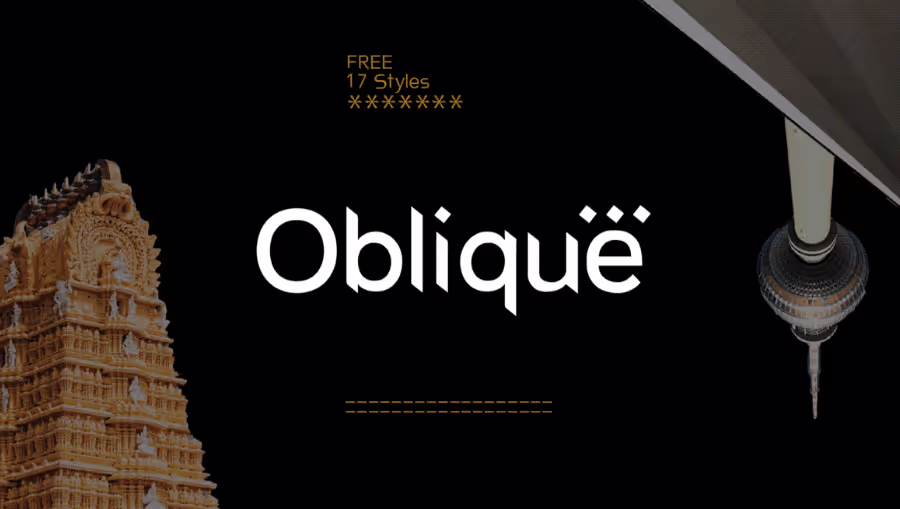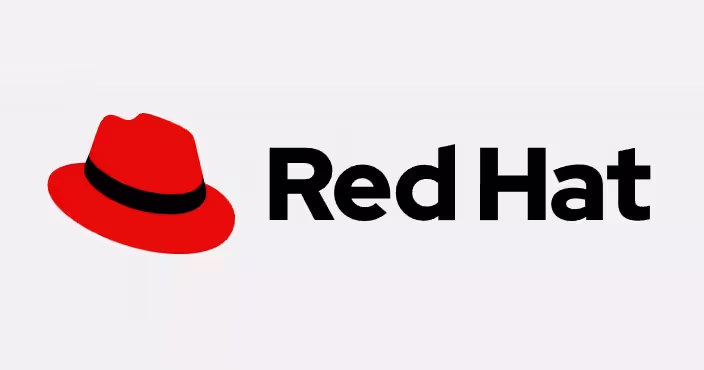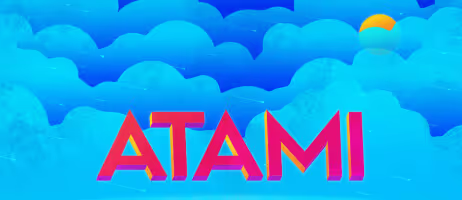
25 Modern Sans Serif Fonts for Trendy Designs
Sure, you’ve heard of Helvetica, Arial and Roboto. But why not spice up your designs with these modern sans serifs?
Sans serifs are known to be crisp, minimalist and most commonly used in the professional context. Due to high legibility these fonts are often used for body text, but can also look great on logos and website design.
If you’re looking for a sans serif font to help you stand out from the rest, here are a few modern fonts you can check out. We’ve split them into free and fonts that require the purchase of a commercial license.
If you’re a small business or startup, paying for typography might not seem like a worthwhile investment—after all, expenses often pile up in these early stages! But don’t forget that typography is an integral design element of your brand identity, and can even be what makes a standout logo! As little as a few tens of dollars can get you a unique font that isn’t overused by your competitors.
1. Yadon (from $21)
This lovely font family includes typefaces in 9 different weights, in both OTF and TTF format. Yadon has a very stylish and elegant look and would make a perfect Art Deco-inspired logo.
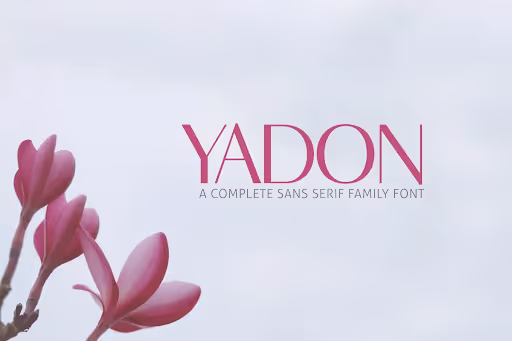
2. Zisel (from $21)
A crisp, geometric sans serif will certainly give your business a professional edge. Zisel is a great modern alternative to consider. It’s got great readability, and works equally well in smaller and bigger sizes, as a display font.
3. Adon (from $16)
If you’re not exactly sure what style you need, Adon is a perfect middle ground in many respects. It’s fairly minimalistic, but the curved edges of the glyphs lend this font a more casual, playful quality. The font pack comes in 5 different weights, thin, regular and bold, which all combine very well.
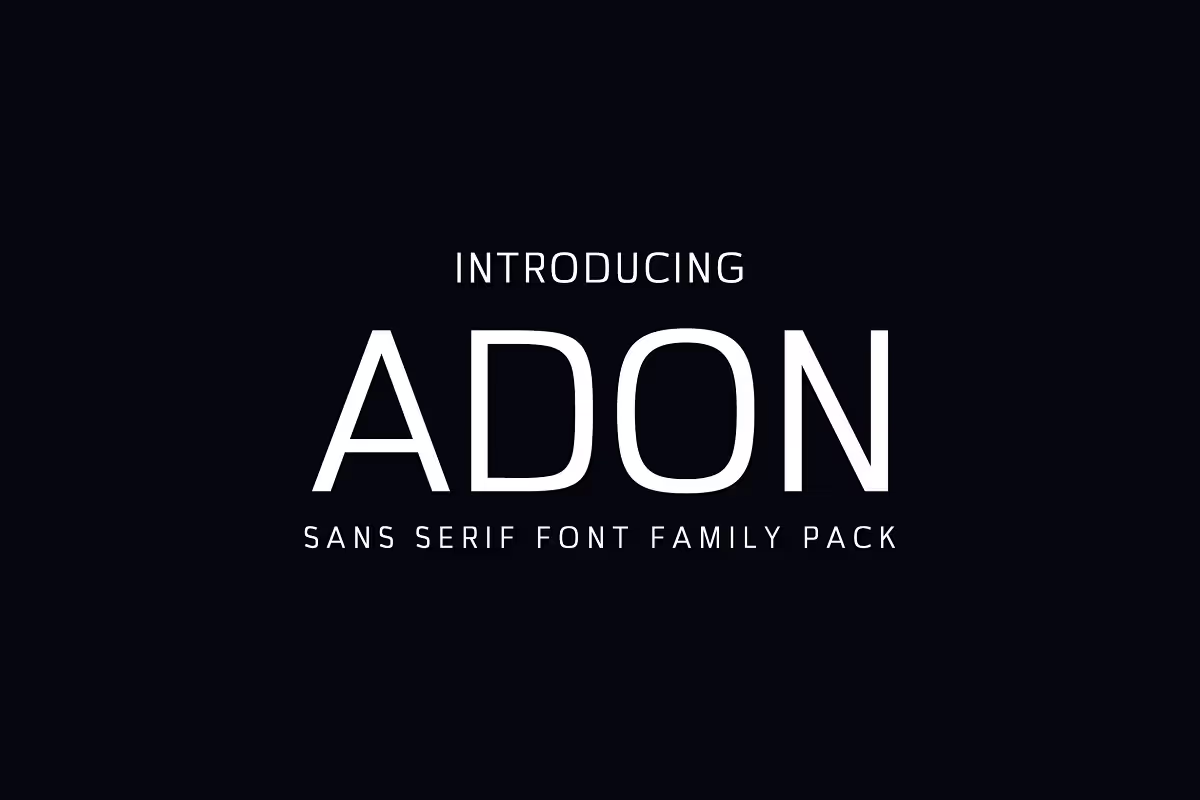
4. Beacher (from $16)
Beacher comes in 5 different styles, which are great for creating all sorts of marketing materials, from social media posts to flyers and brochures.
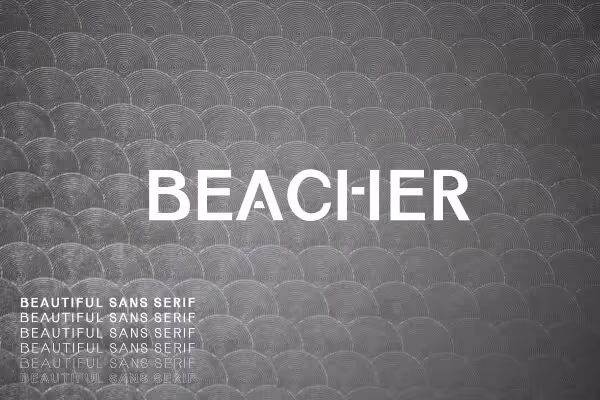
5. Abira (from $13)
Abira is a fun font with quirky square lettering, perfect for creating unique print materials, stationery or merch. It comes in 6 weights, each with a very distinct look, so it can be a great way to diversify and spice up your designs with just one font.
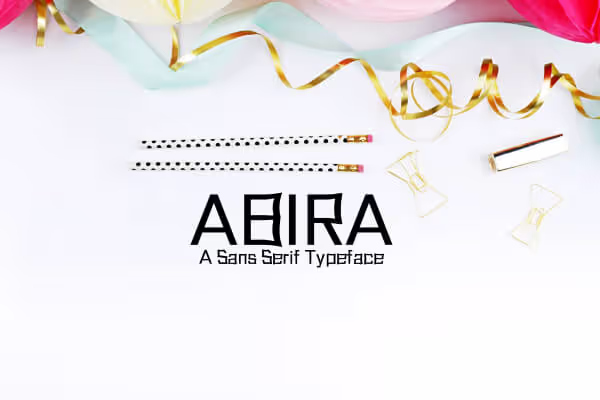
6. Fragile (from $17)
When we think of sans serif typography, we usually imagine a minimalistic look, a professional, stern feel. Well, Fragile is definitely an exception here, with its gorgeous, decorative look. Based on the letterforms from the 60s and 70s, it’s a very stylish typeface, perfect for boutique logos, as well as spa branding.
7. Dual (from $29)
Although any graphic designer can quickly spot even the slightest differences between two typefaces, for non-experts some of these nuances can be difficult to pinpoint. Well, that certainly won’t be a concern with Dual.
This unique font family created by Charles Daoud comes with 563 glyphs, including 251 edgy, alternative glyphs that will help you create a totally custom look with your designs. I can certainly picture it as a hipster barbershop or brewery logo. The price of the entire pack is $115, but there are a couple of individual styles which you can grab for free!
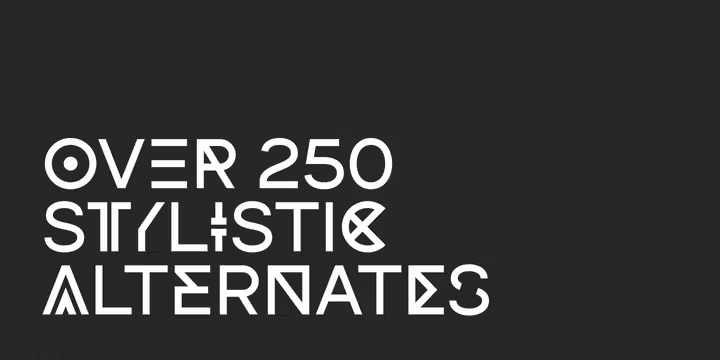
8. Noyh Geometric (from $60)
Sure, this type comes with a slightly heftier price tag, but there is a good reason for that. Noyh Geometric is actually a huge font family of 18 fonts, with a truly unique look that is still very professional and versatile. It’s meant to have a corporate look, but with an updated, modern twist. And indeed, this could be the perfect font to include in your brand guide!
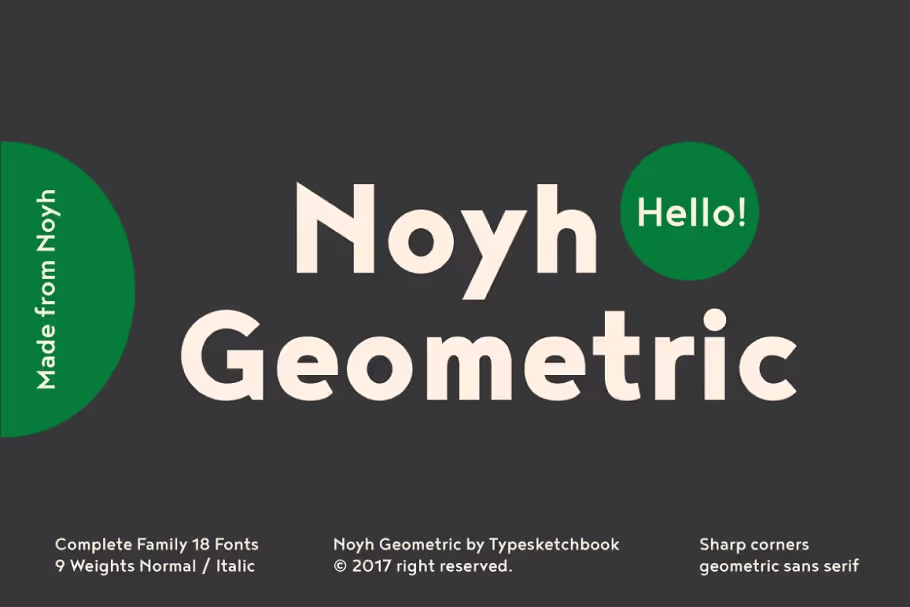
9. Briar Display ($15)
Did anyone say Art Nouveau? This gorgeous typeface perfectly captures the nature-inspired art movement, but with its one groovy, modern twist. It’s quite affordable, although it’s worth noting that it’s a display font, meaning you’ll need a secondary type to accompany it. Perhaps a modern serif would work perfectly?
10. Banny (from $10)
Banny is both playful and professional, making it an excellent choice for a number of industries. Place it on a frilly mockup, and you’ve got yourself a perfect spa brochure. Or, add some modern isometric illustrations and you might have a great new app logo!
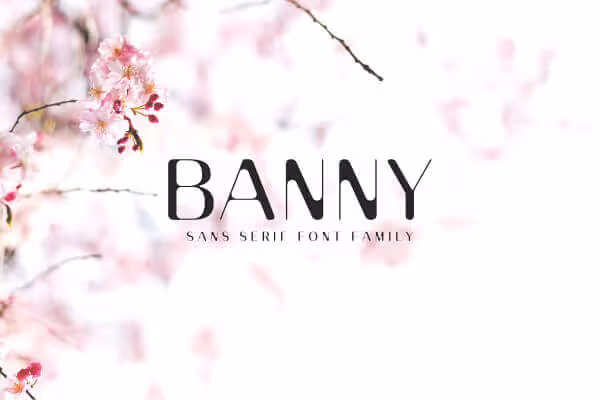
11. Personify (from $15)
A unique font inspired by Greek letters, but with a creative modern twist, this typeface is sure to give your designs an edgy and interesting look. It’s an eye-catching display font that would make a wonderful logo font.
12. Organik (free font)
This all caps font is free to download from Behance, and it would make a great display font for signage, email banners or headers. The round lettering has a slightly retro look, so it would certainly give your design a more interesting and creative look.